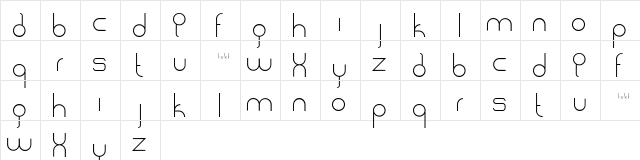
badlobster Normal
Design Context for badlobster Typeface
badlobster offers clean, dependable letterforms without strong stylistic allegiance, making it a practical choice for designers who need flexibility.